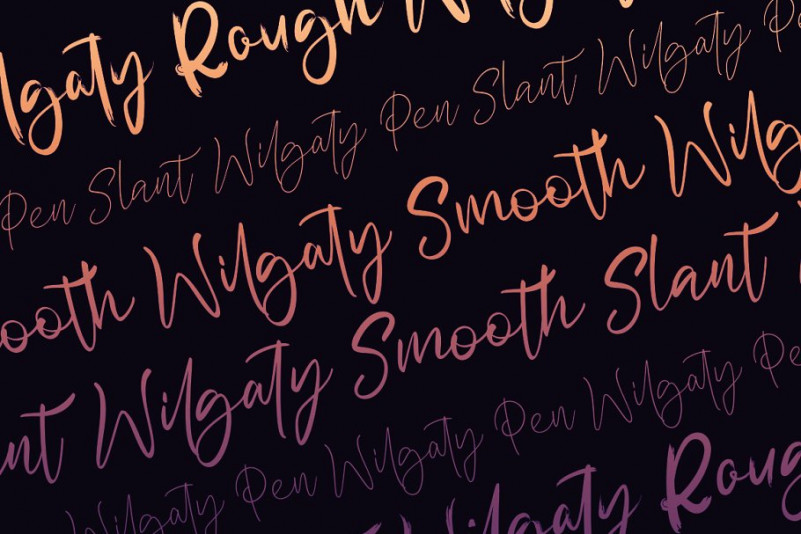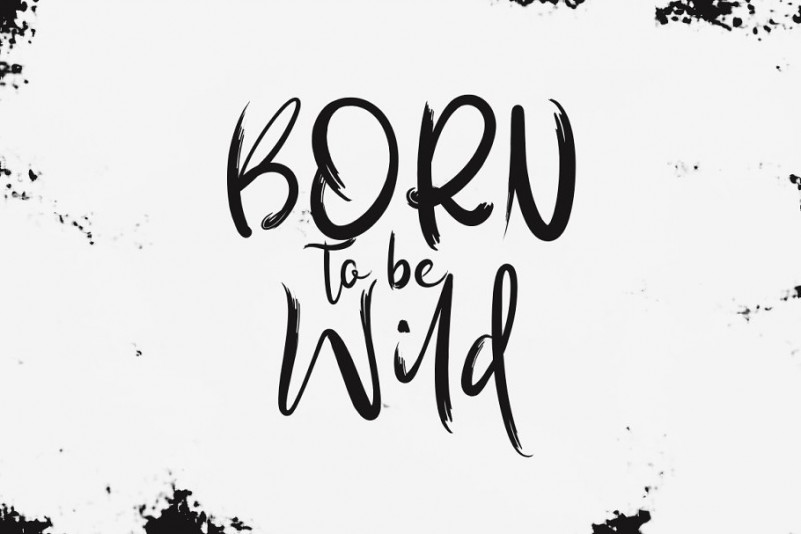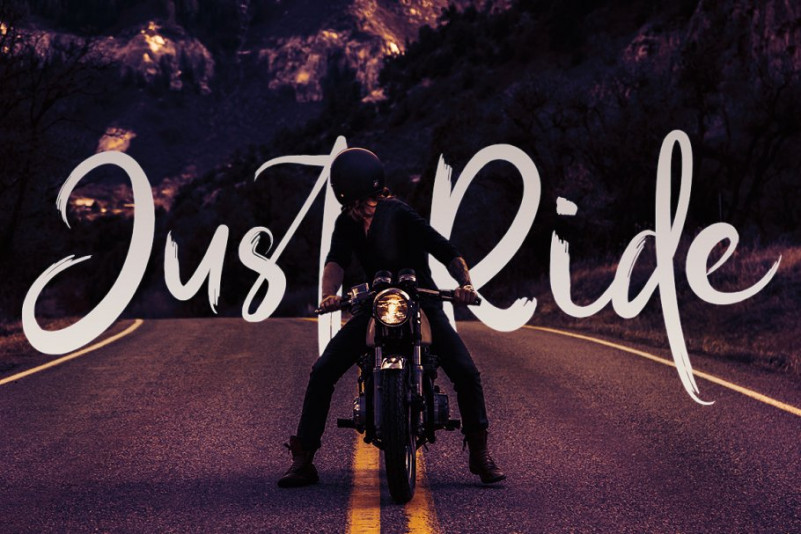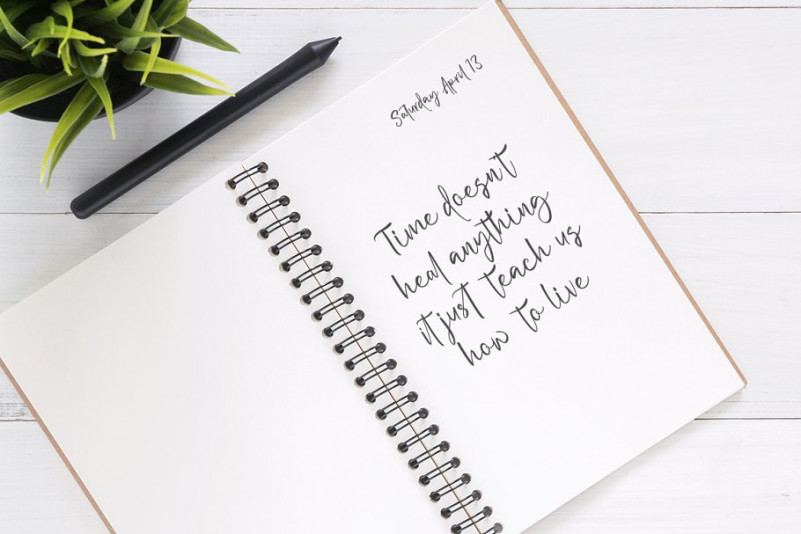
Wilgaty Brush Font
Wilgaty Brush Font – Free Demo
This is a lively brush font intentionally crafted to give your designs new life! Throw it up on your businesses social media posts, use it in logos. So enjoy!, it’s designed and shared by Motokiwo. Introducing Wilgaty Font. Wilgaty Brush Font is handwritten script font with 3 stroke variants. It’s best choice to use the same writing style with different stroke style. Wilgaty suitable for large range of design project, just simply choose the stroke style that match with your project.